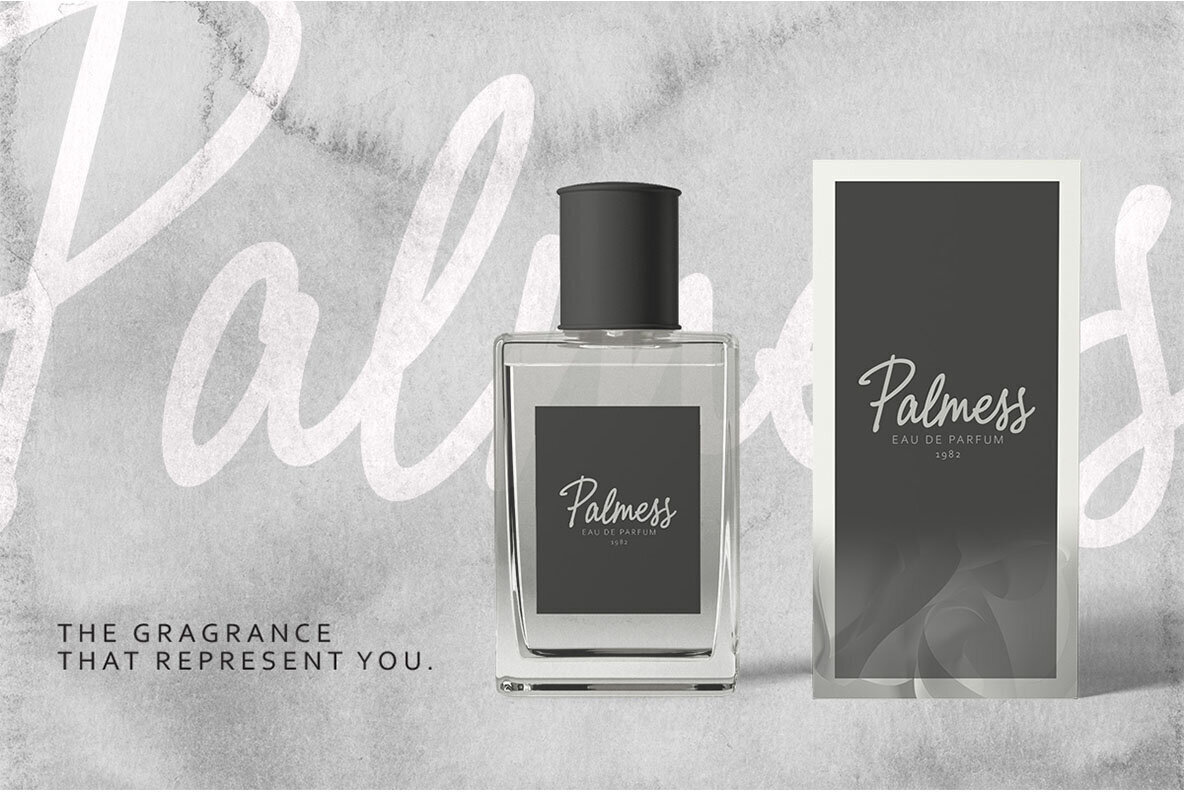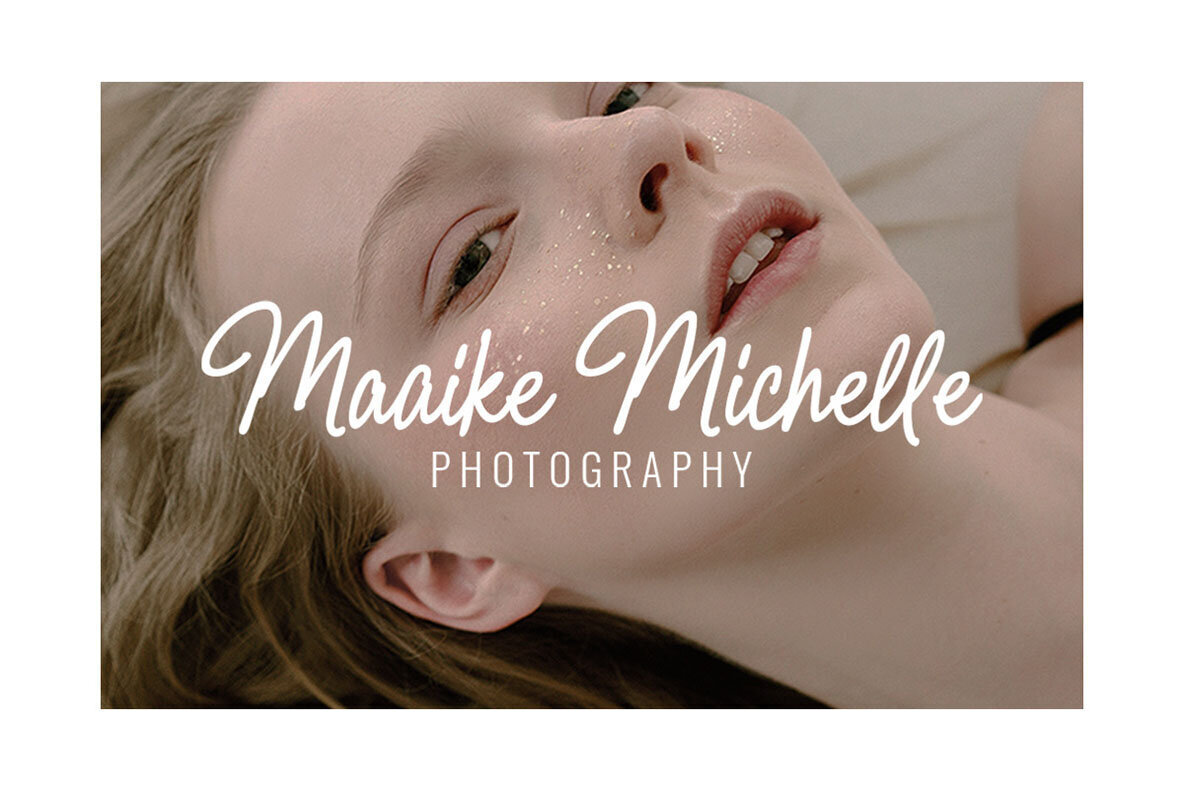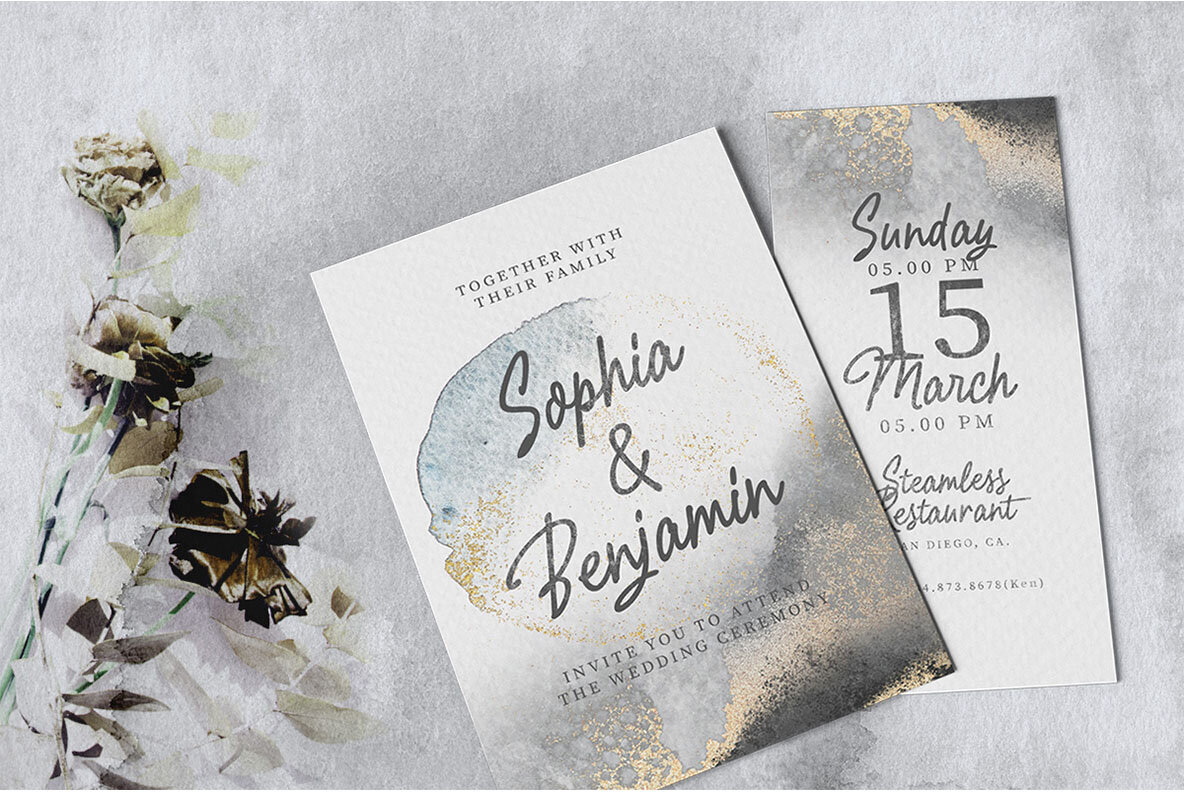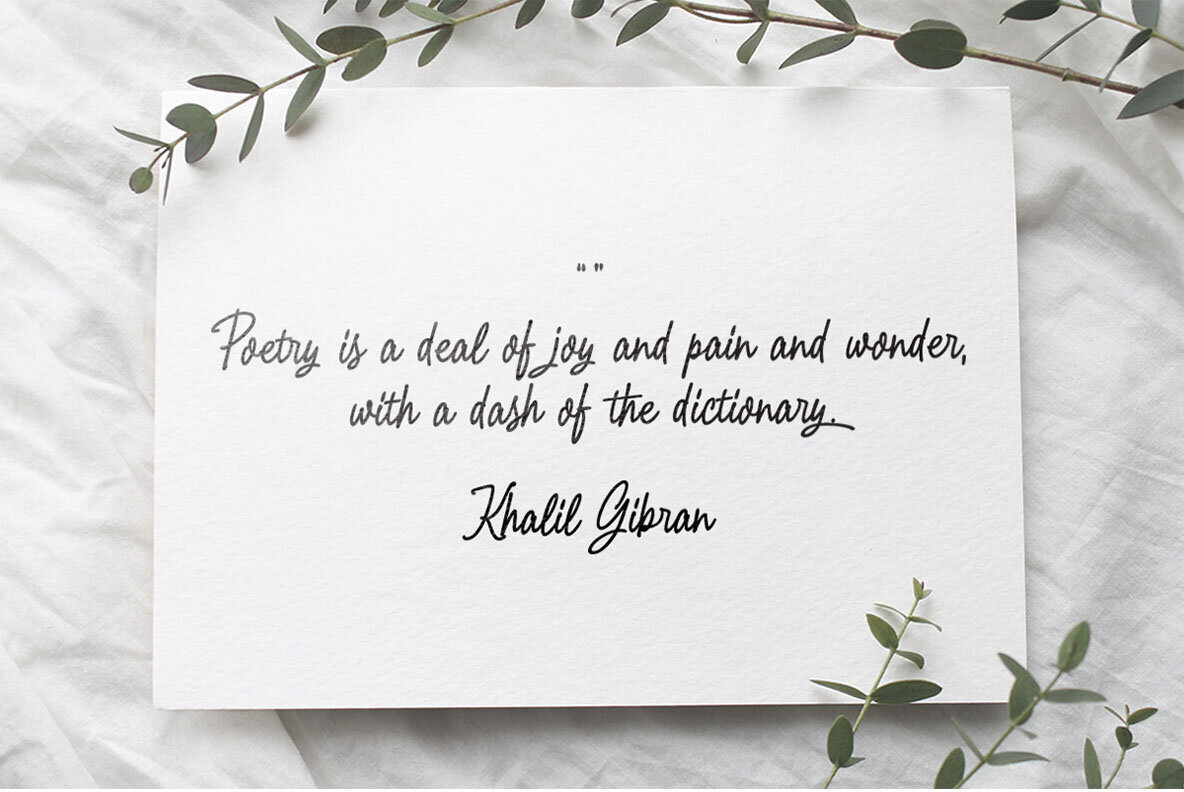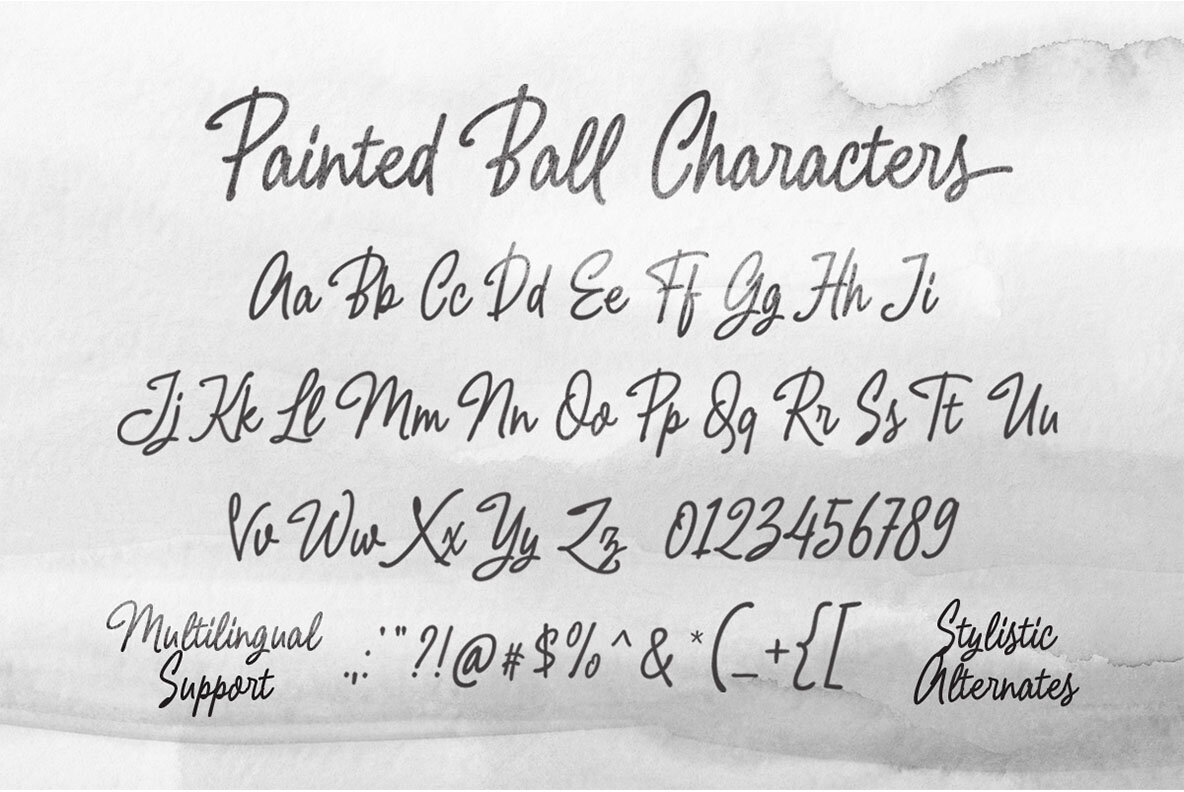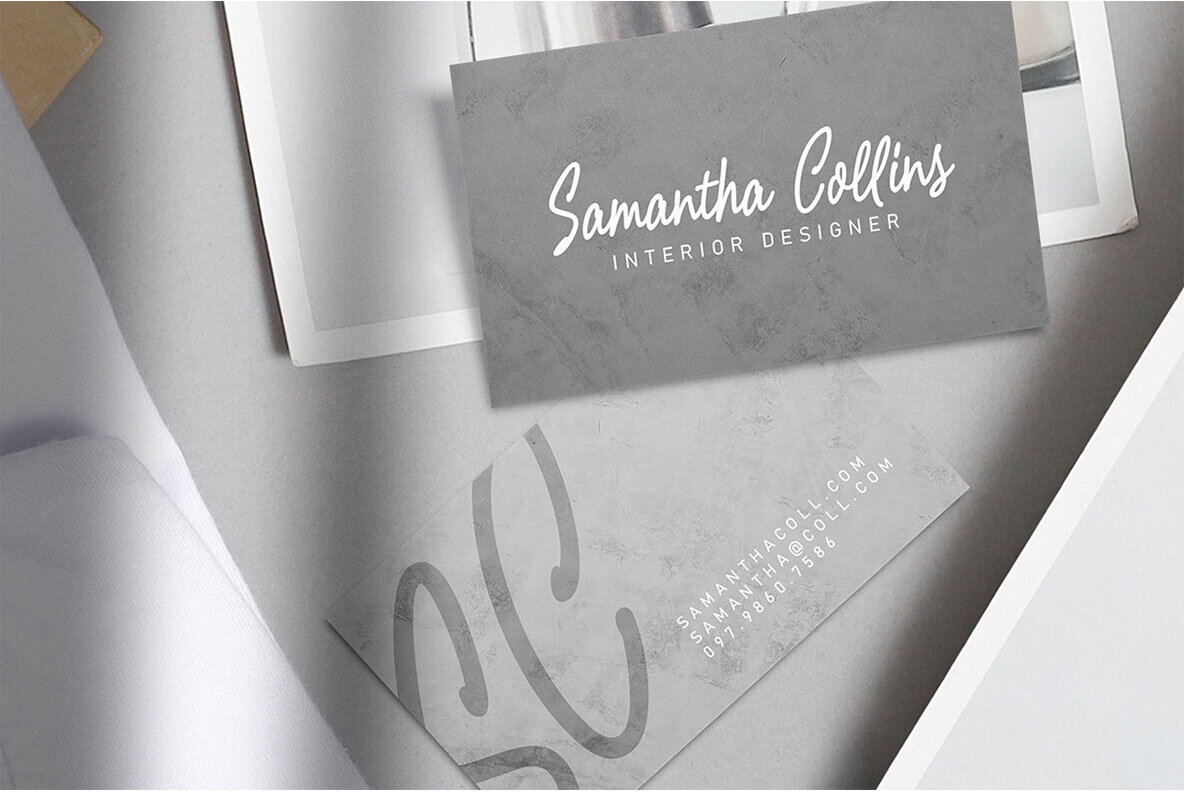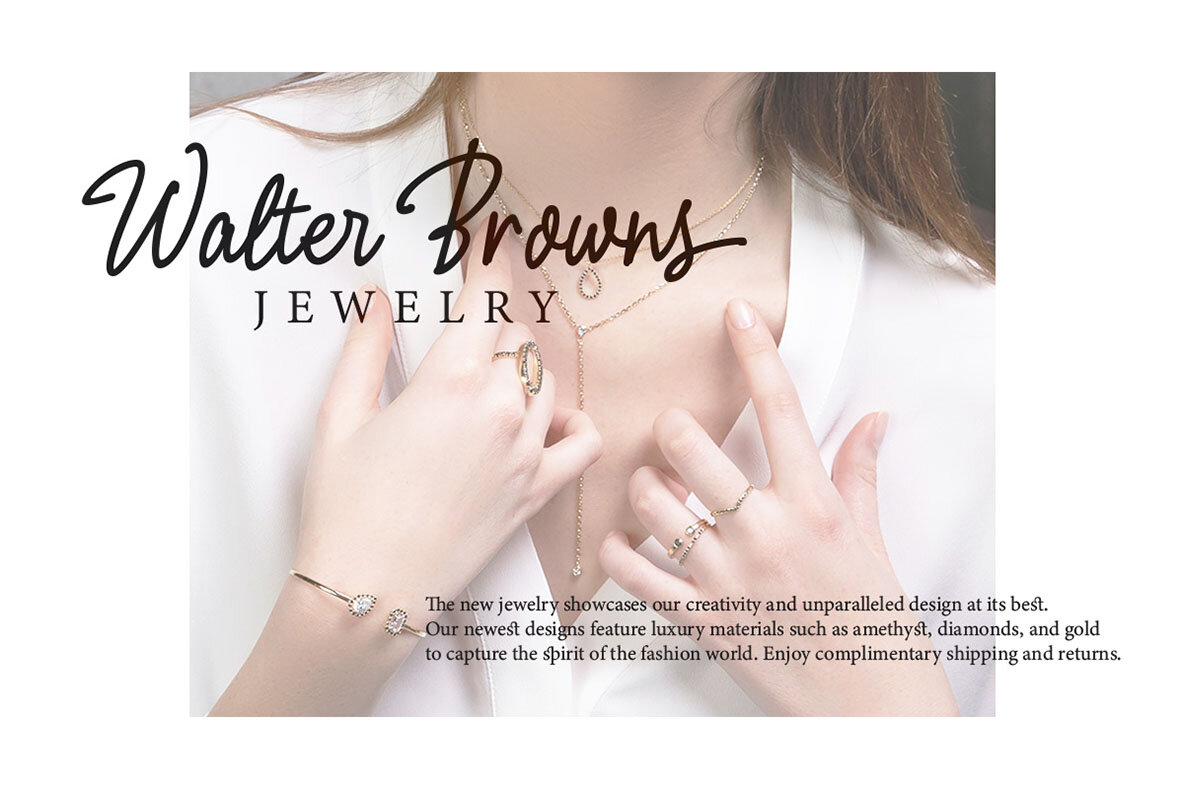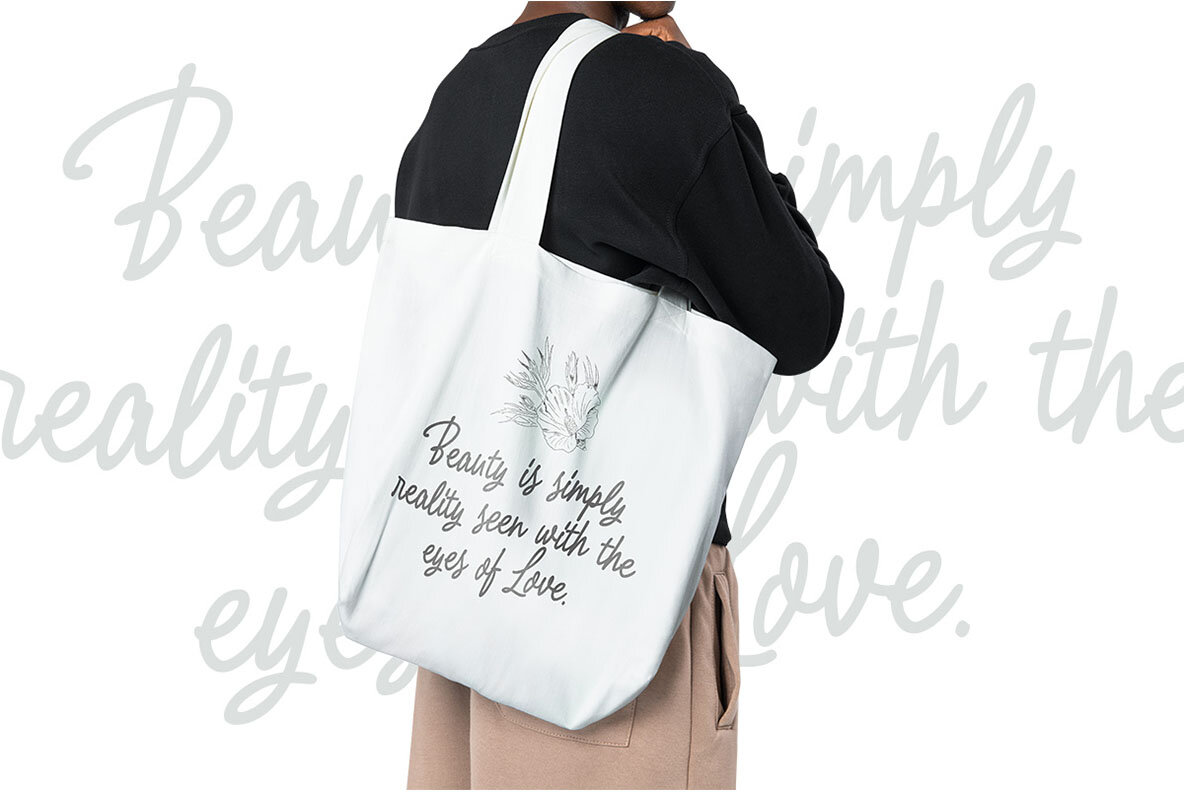
Painted Ball Font
Painted Ball Regular
Painted Ball exudes a natural handwriting feel that artfully complements both formal and creative designs. This monoline script typeface excels in applications ranging from logos and headlines to signage and stationery. Its versatility extends to invitations, labels, and greeting cards, proving invaluable for varied domains including fashion, makeup, and advertising.Painted Ball: Elegant Monoline Script
Distinct Features